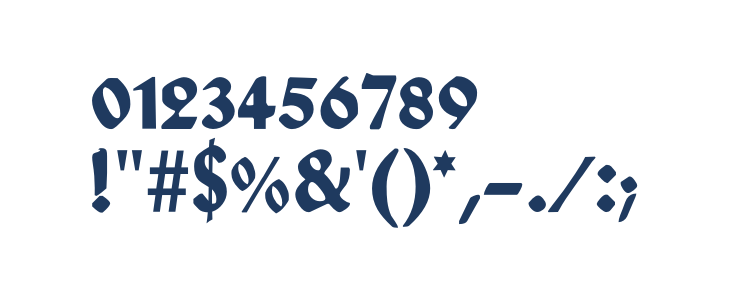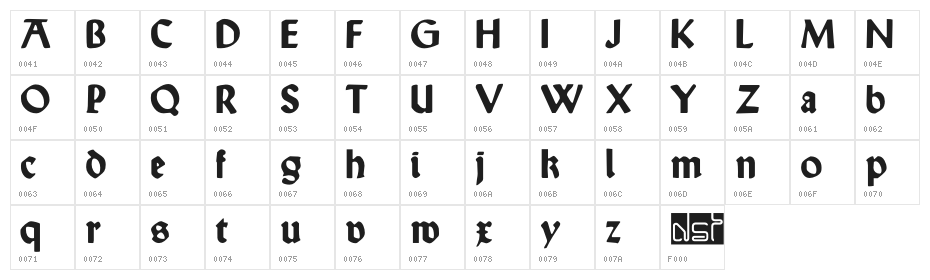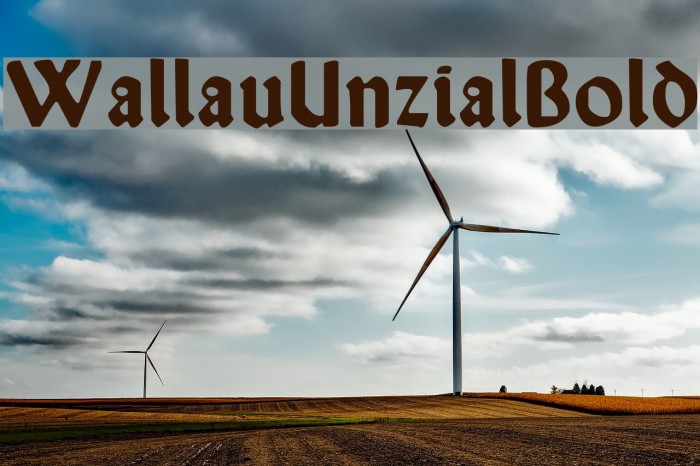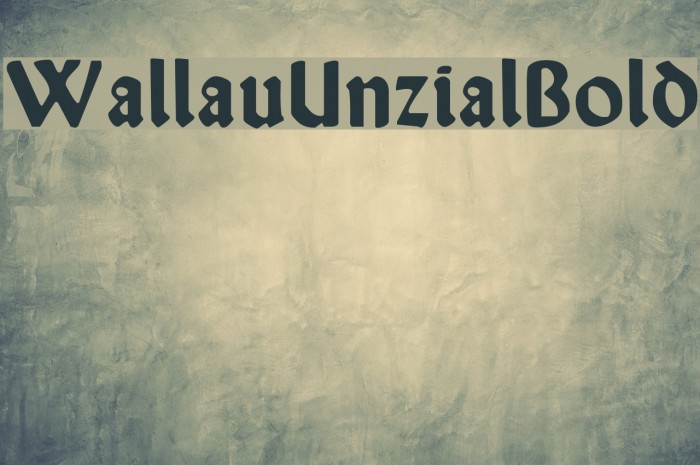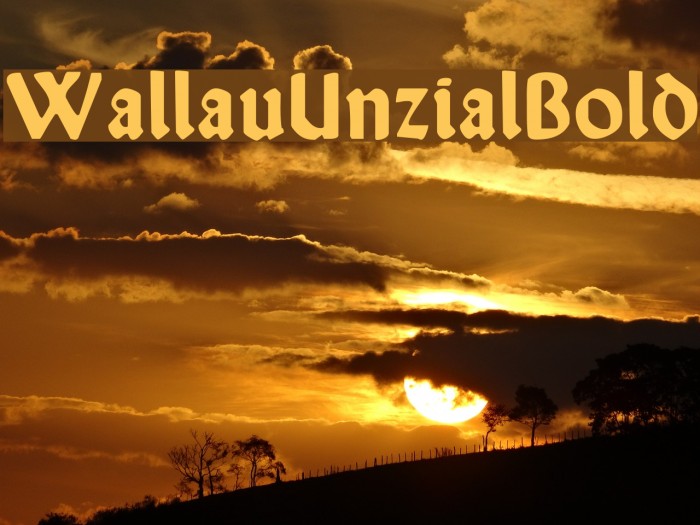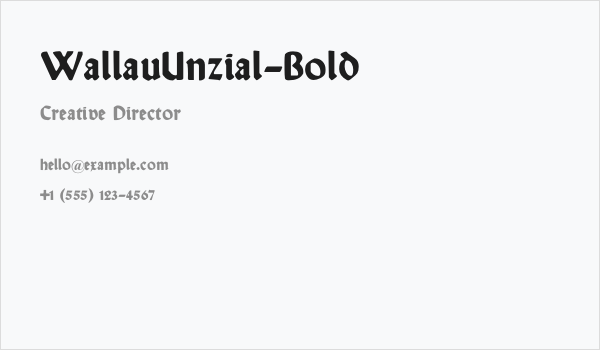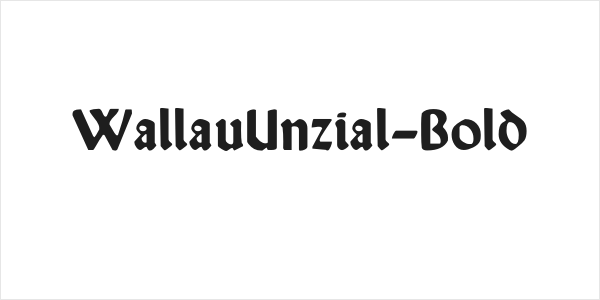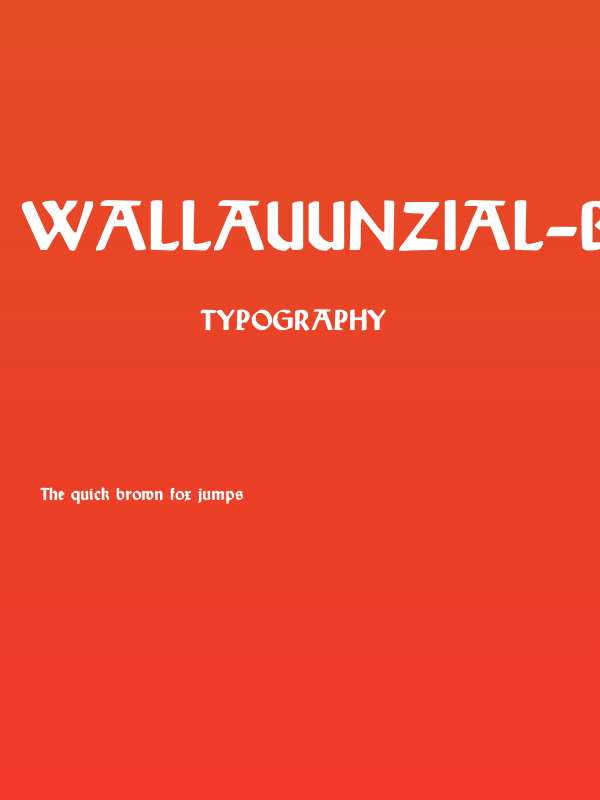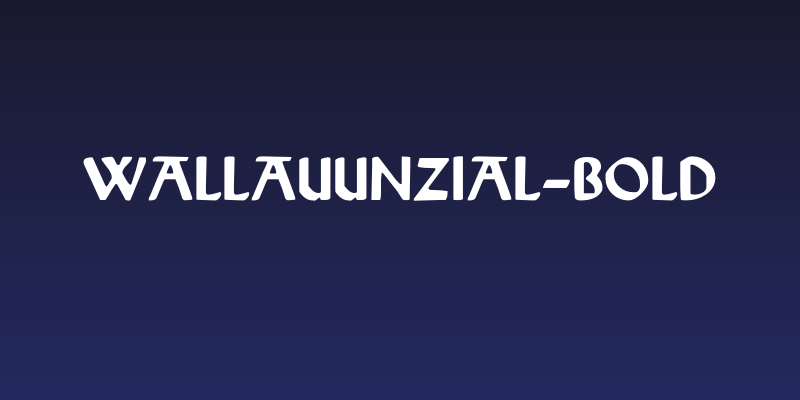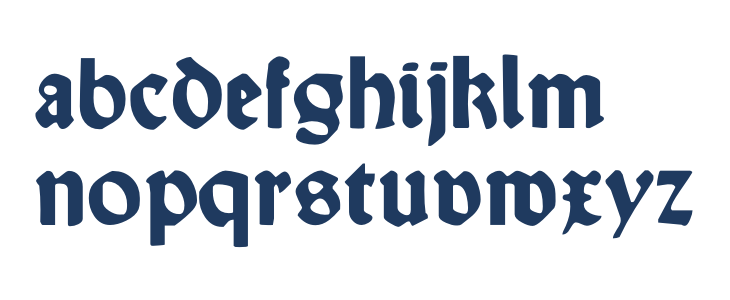
WallauUnzial-Bold Font
WallauUnzial-Bold Description
This font features a bold and striking design, reminiscent of traditional blackletter styles with a modern twist. The characters are robust and angular, with a strong presence that commands attention. The uppercase letters are particularly bold, with sharp edges and a slightly condensed form, while the lowercase letters maintain a consistent weight and style. The numerals are equally bold, ensuring readability and impact. Special characters are designed with the same boldness and attention to detail, making them stand out in any composition. This font is ideal for projects that require a strong, historical, yet contemporary aesthetic.
| Proposed Projects | Ideal for branding, posters, headlines, and any design requiring a bold, historical aesthetic. |